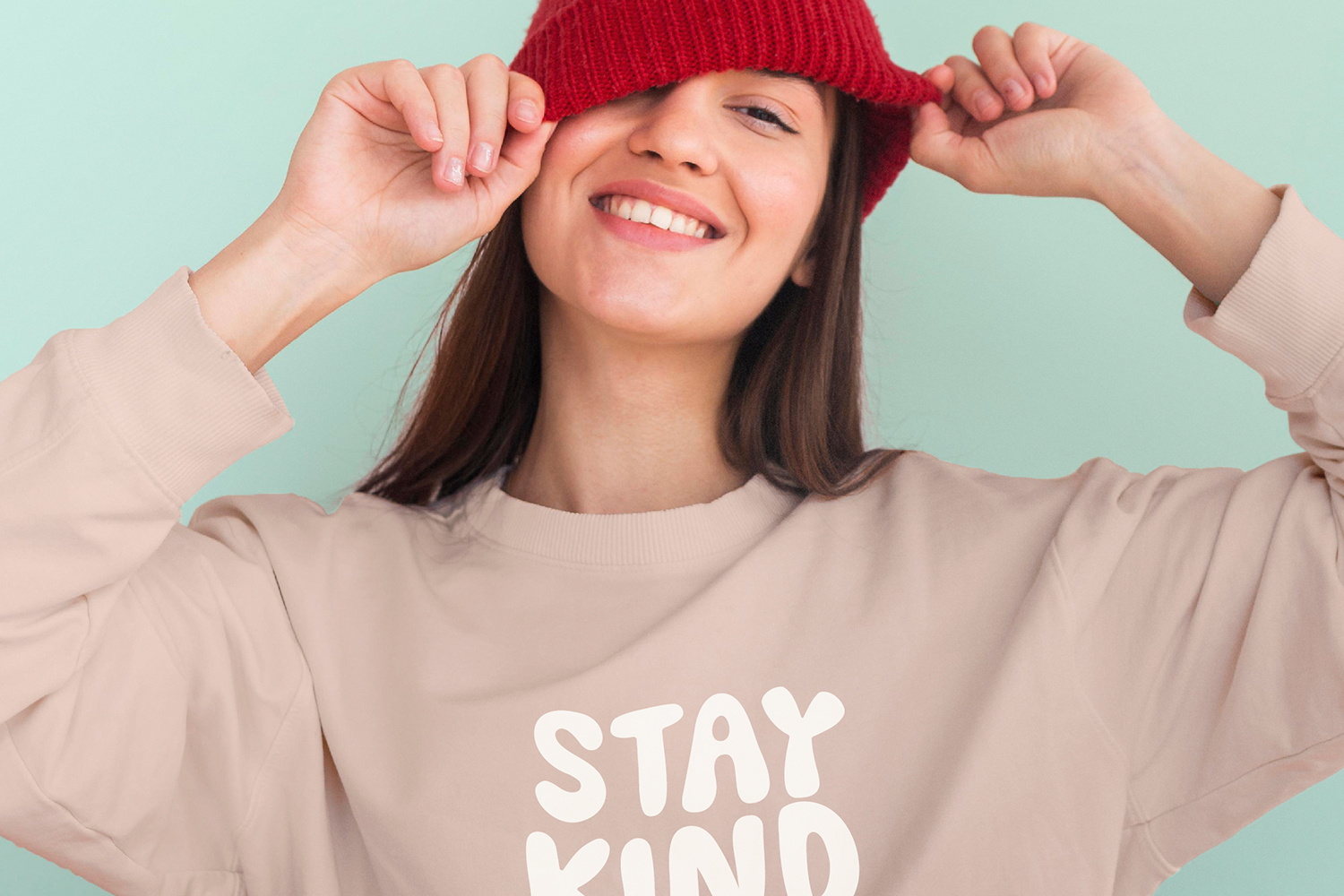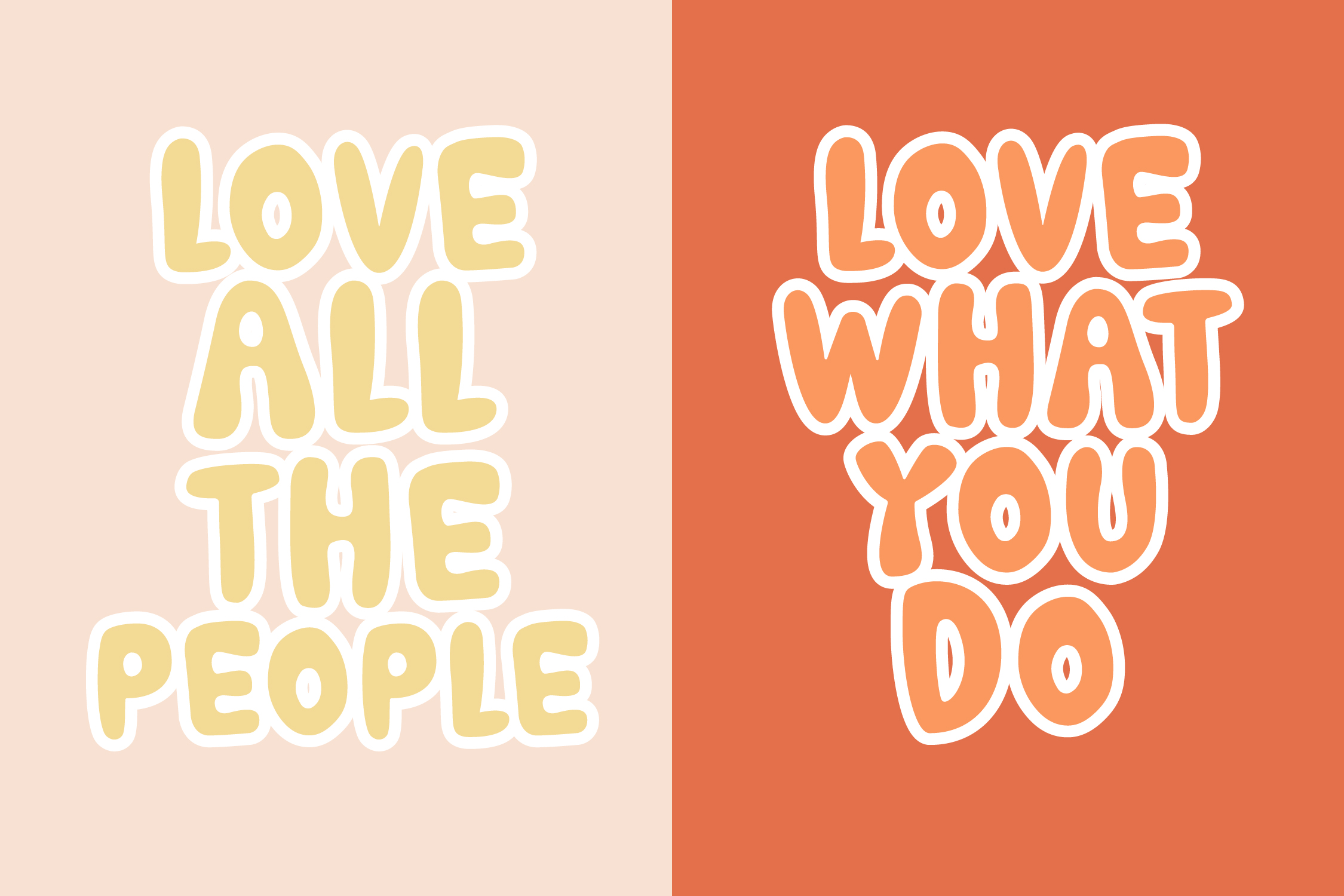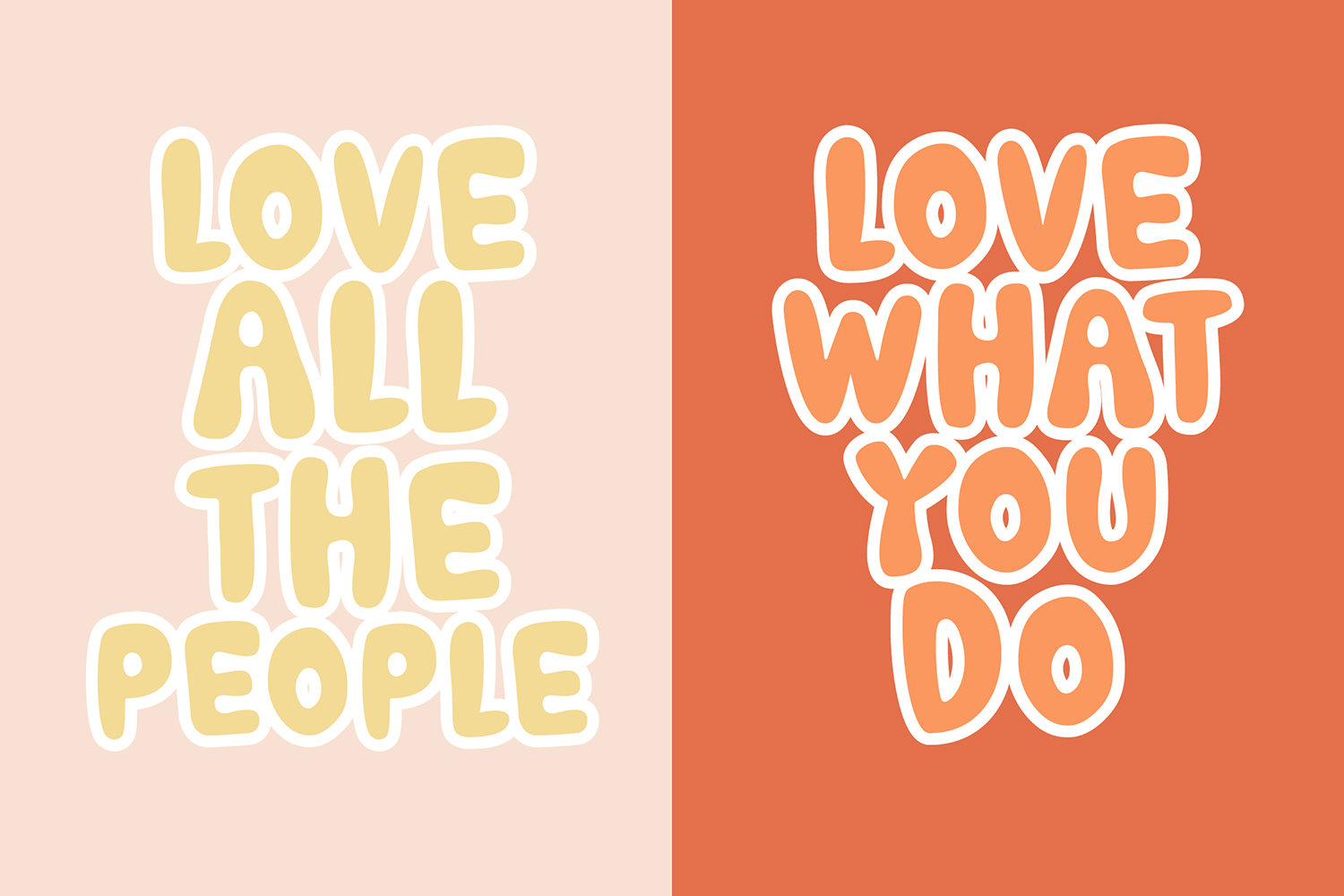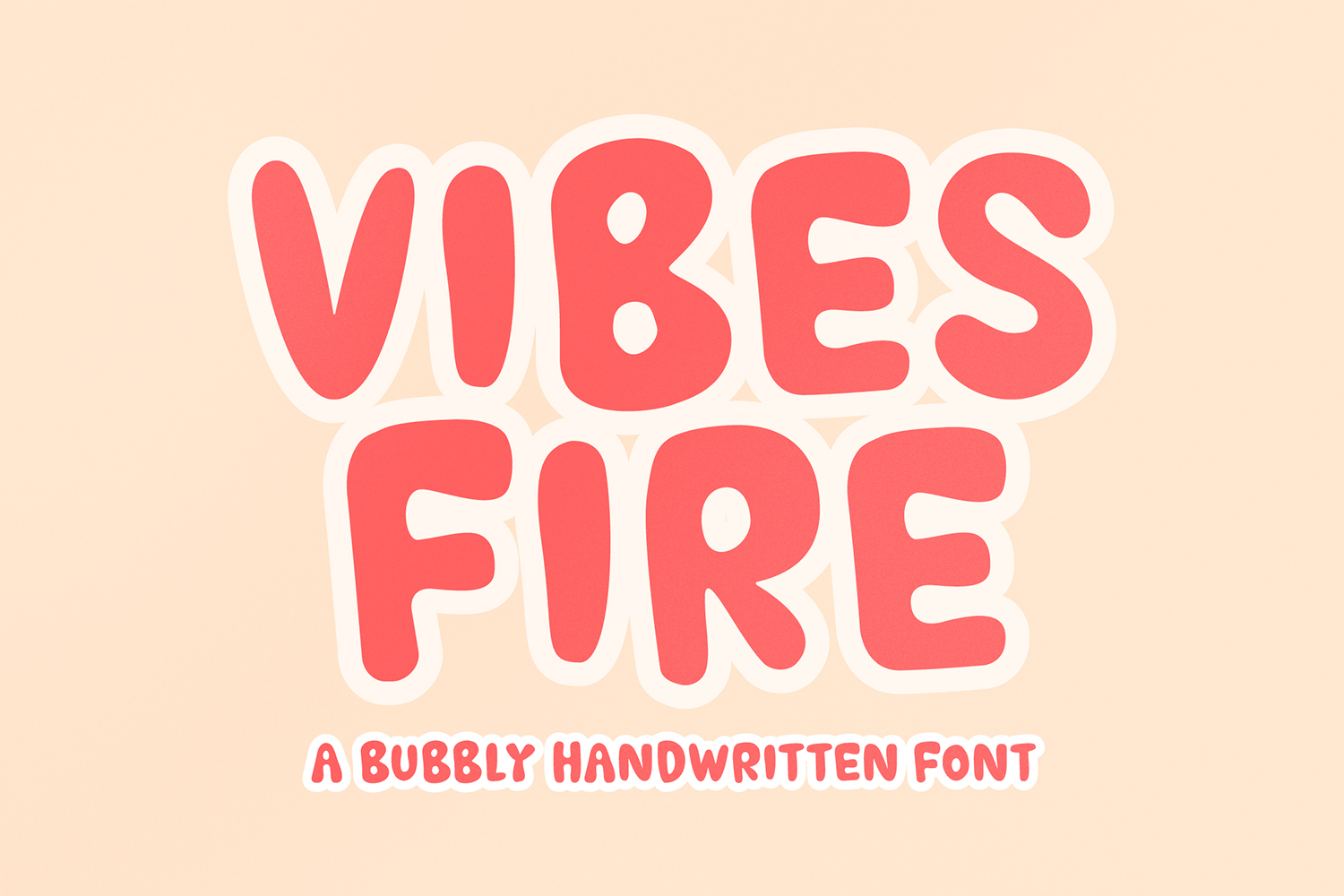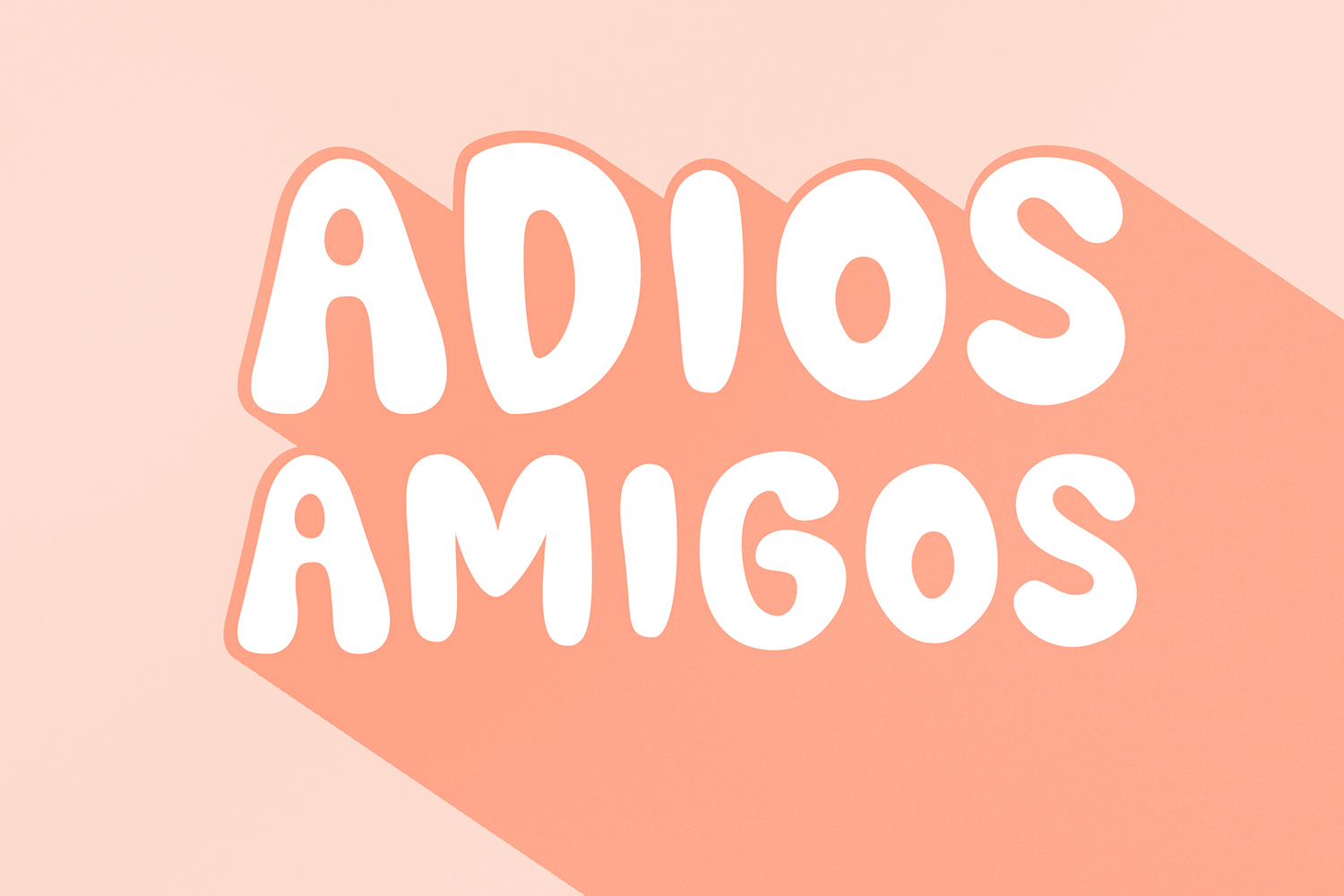
Bigger Summer Free Font
Bigger Summer Free Font is a bubbly handwritten font with a unique style and modern look. It is perfect for elegant and luxury logos, book or movie titles, fashion brands, magazines, clothes, lettering, quotes, and many more. This free typeface was designed by a talented Storytype Studio. If you like it don’t forget to check out the full version.